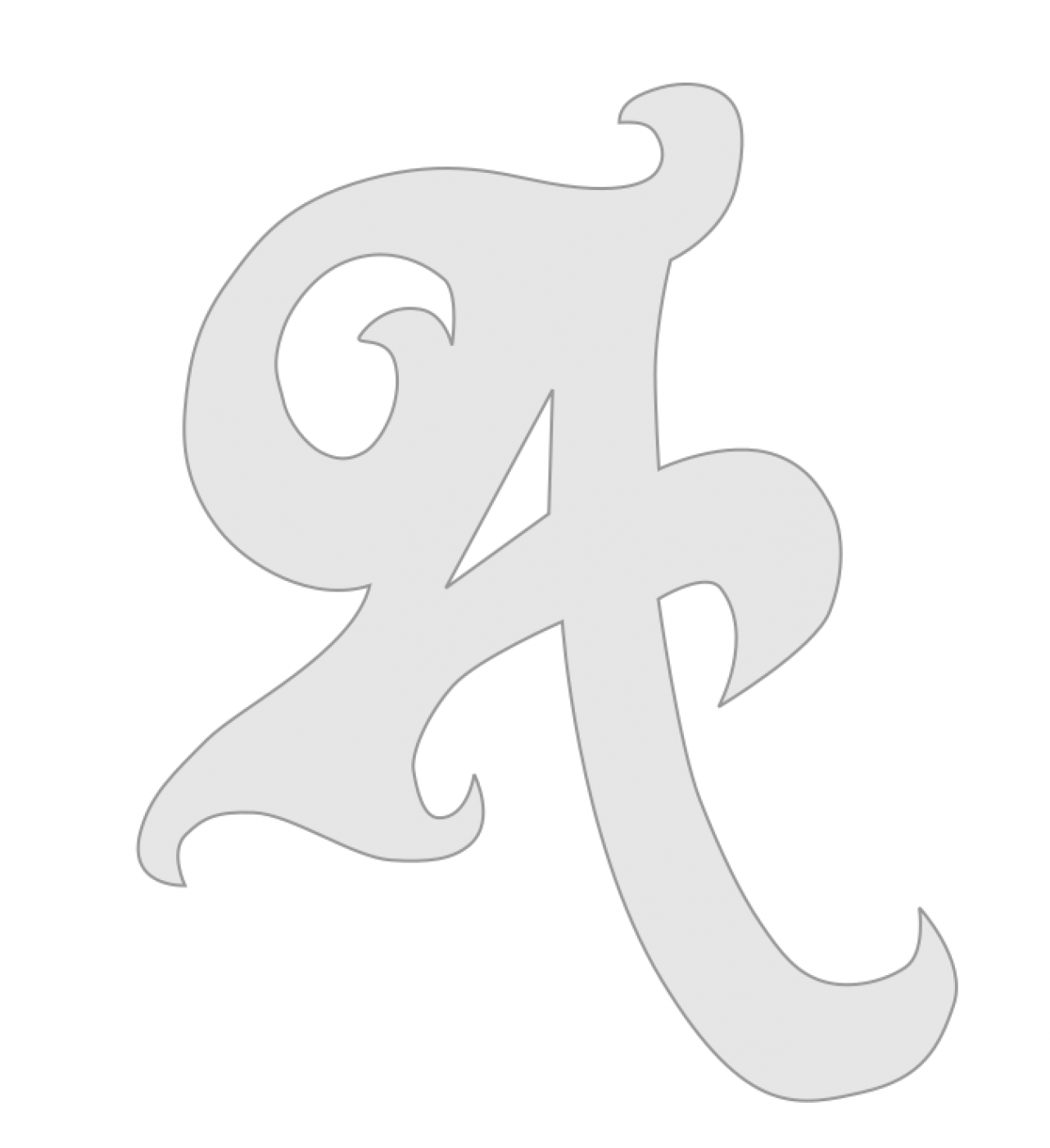
Need specific decorative-script-vintage font
Hi all, I have been looking literally thousands of fonts but cannot find the one shown in the photo. I also have attached an approximated "A" which seems to be very particular to that font.